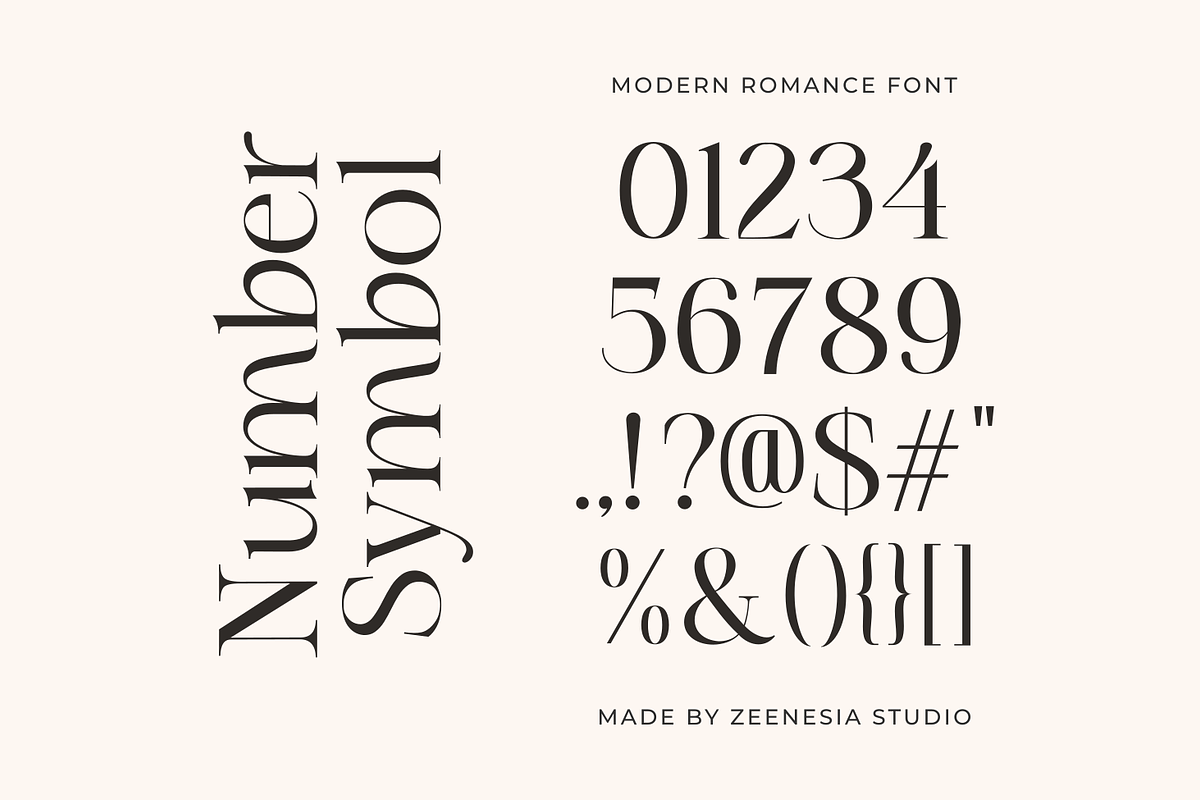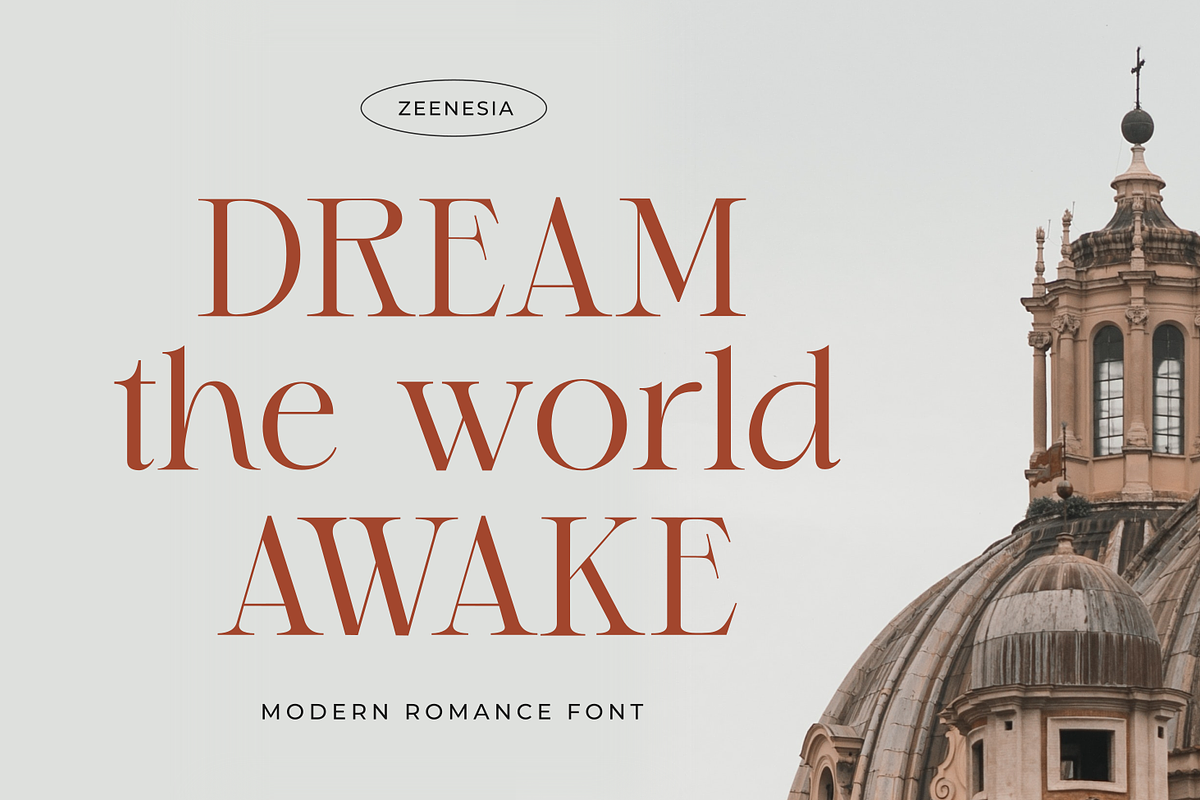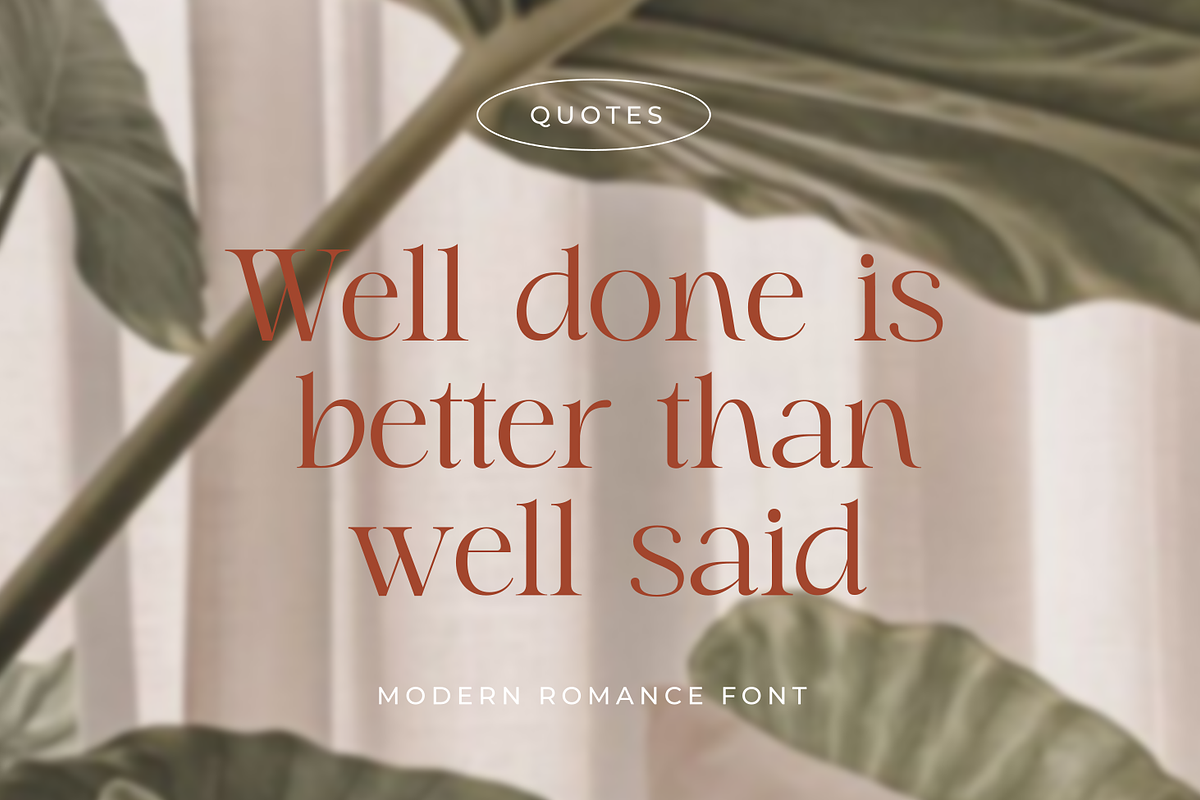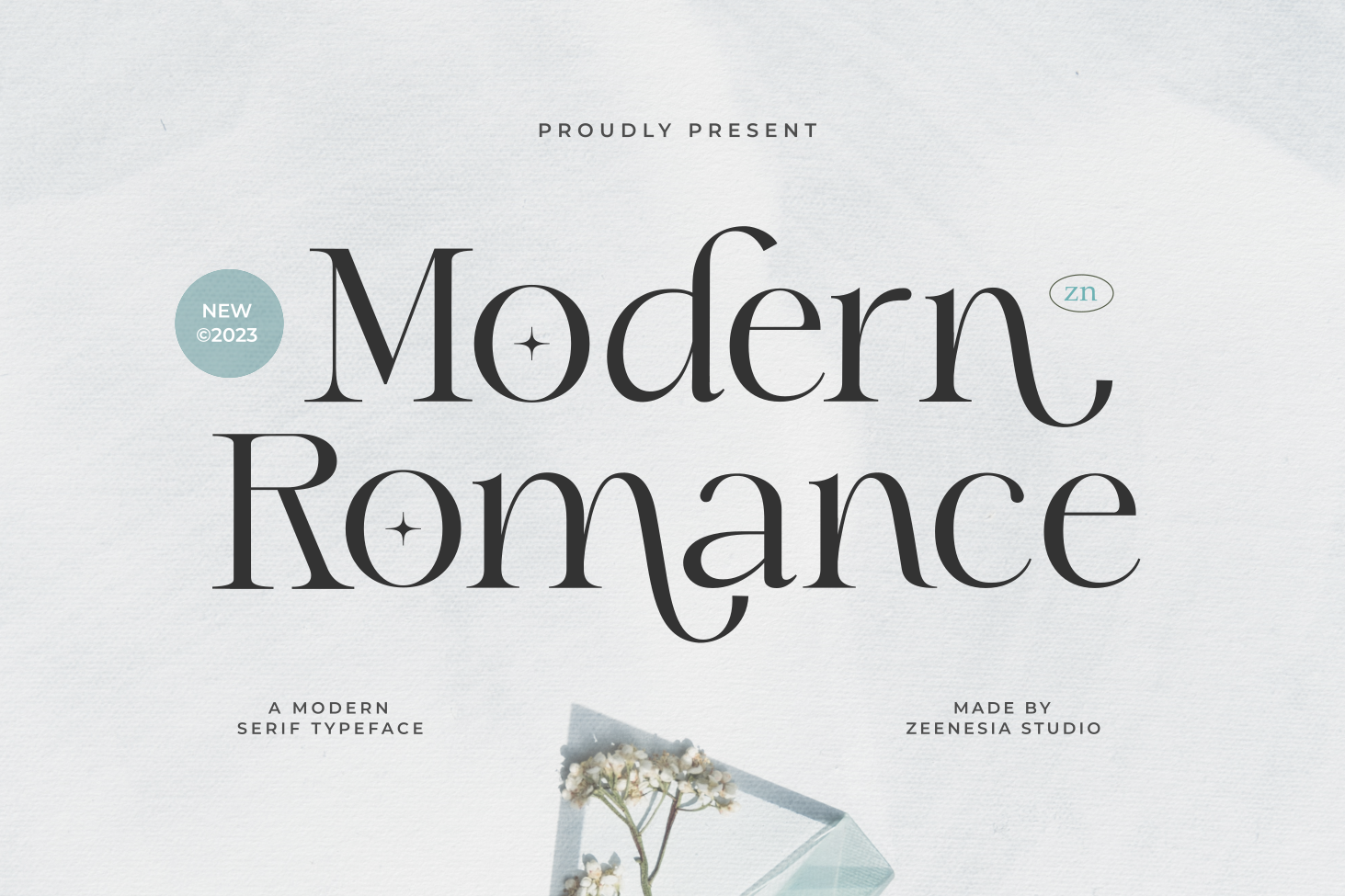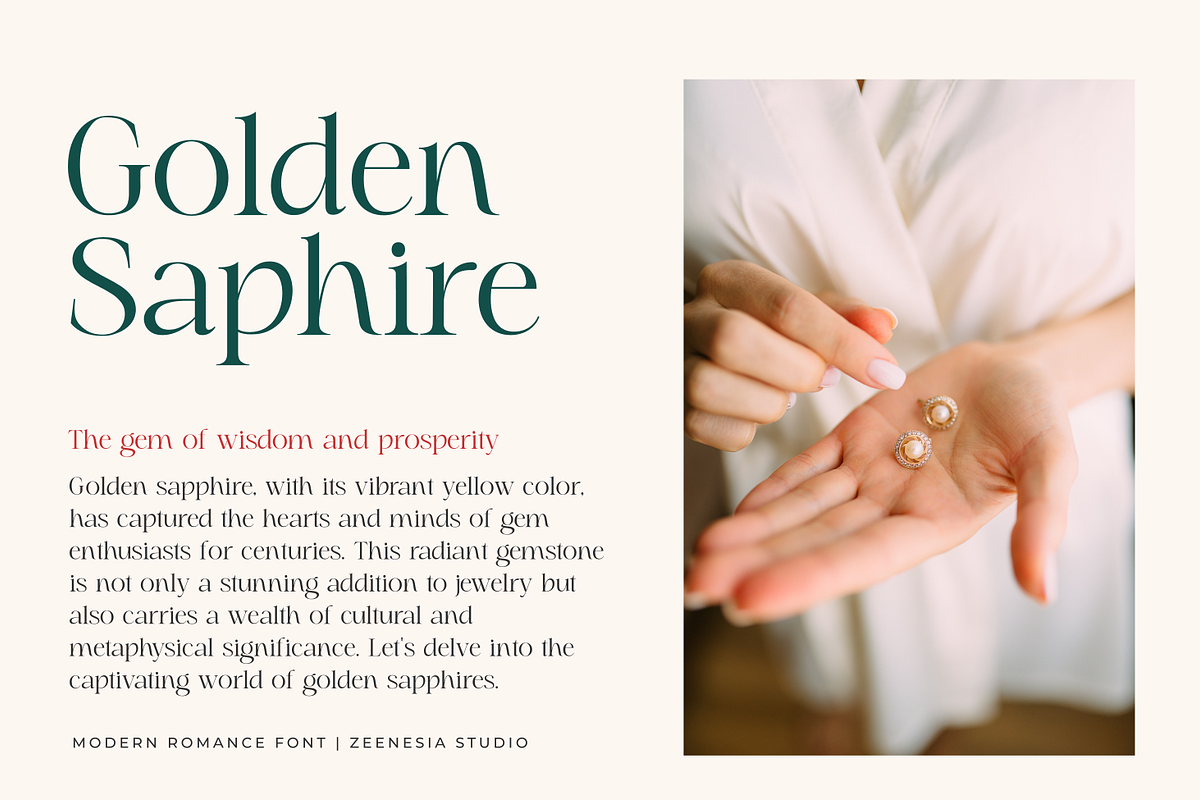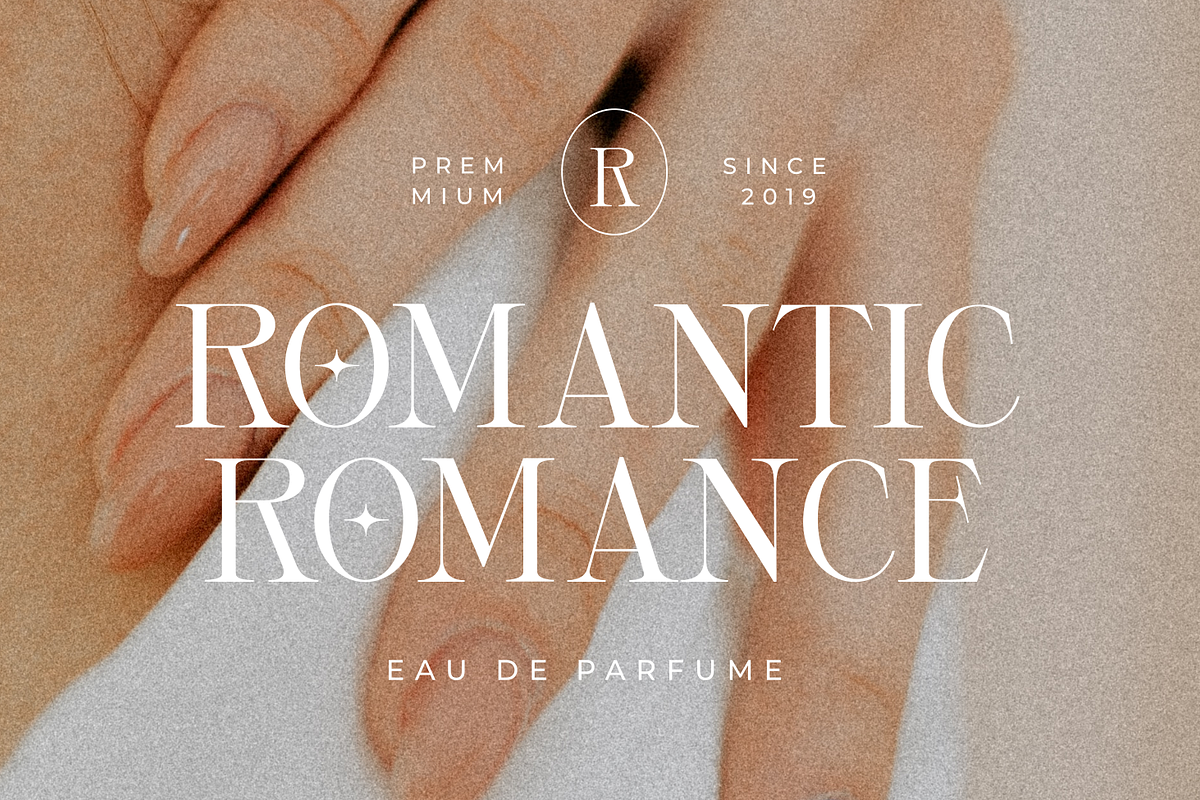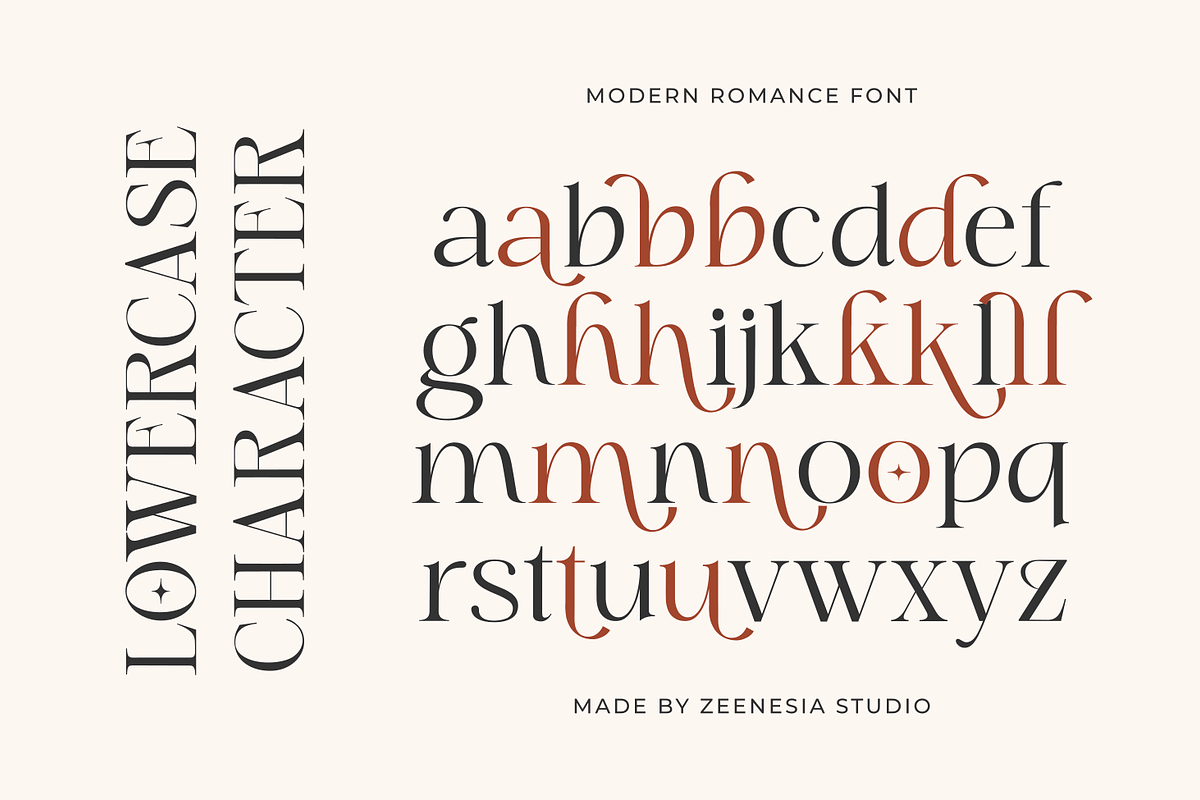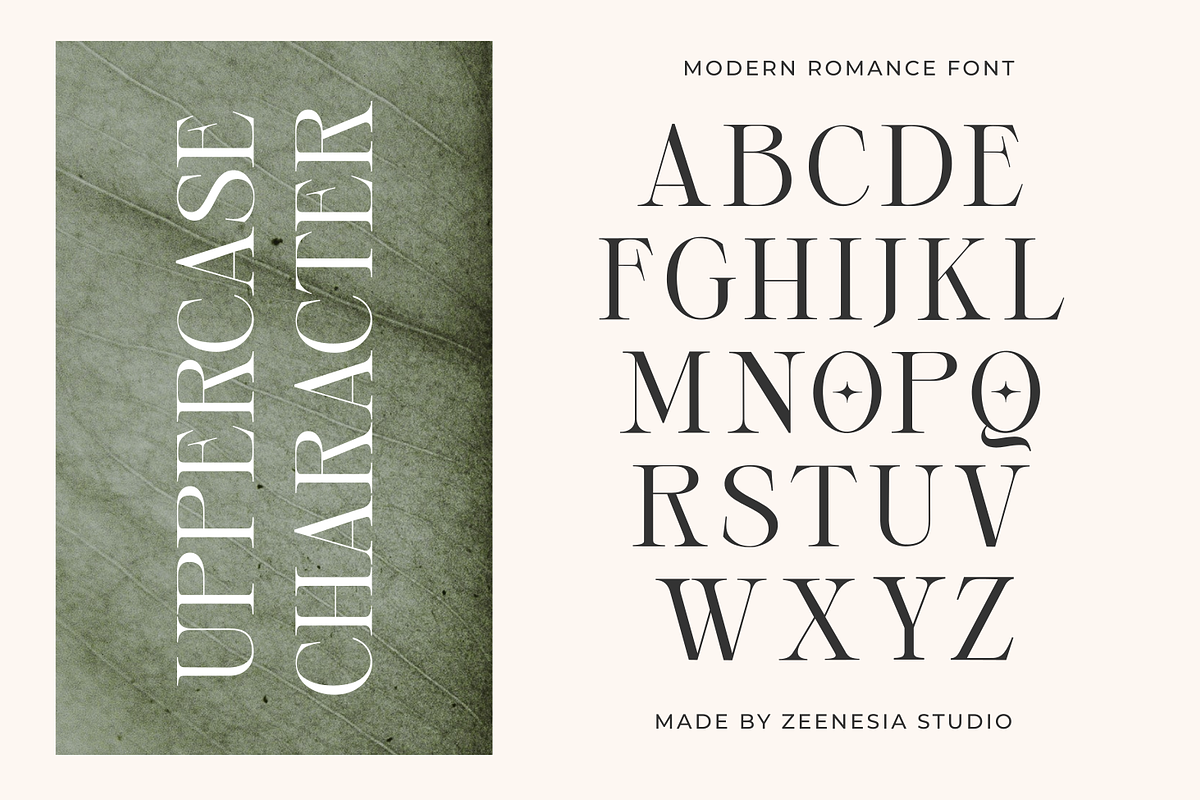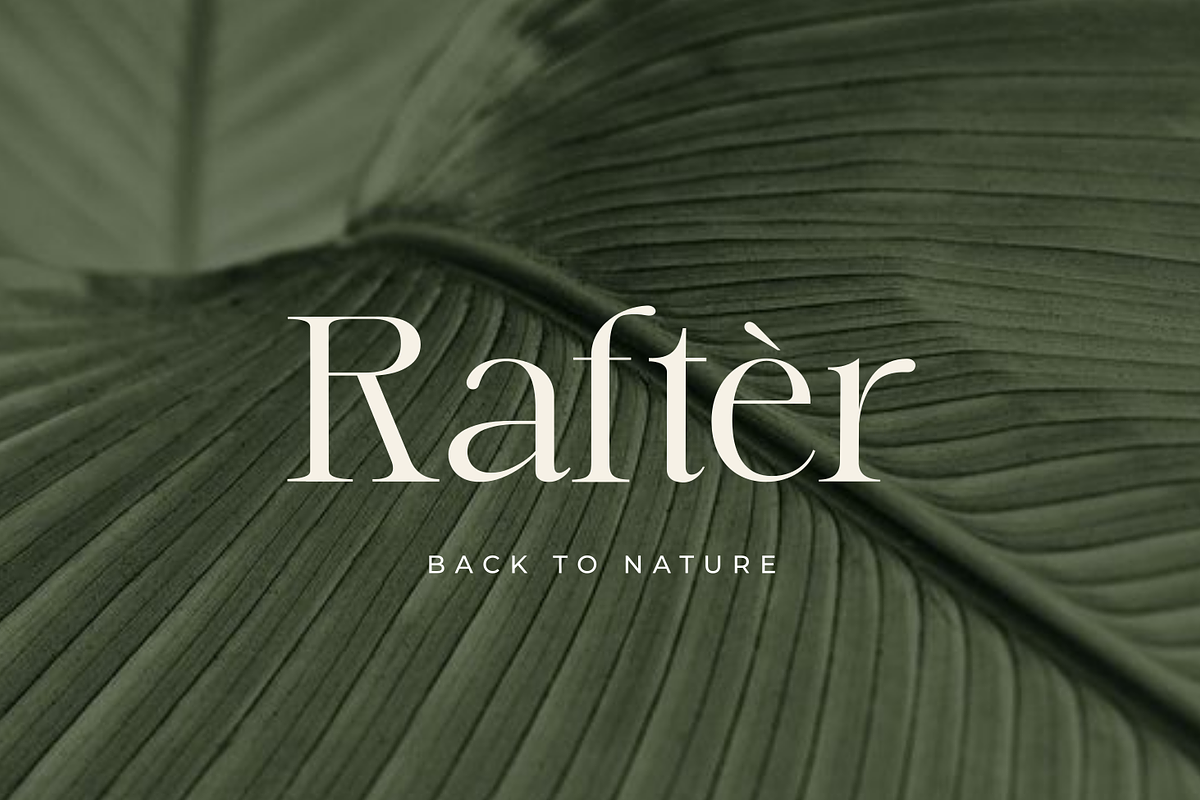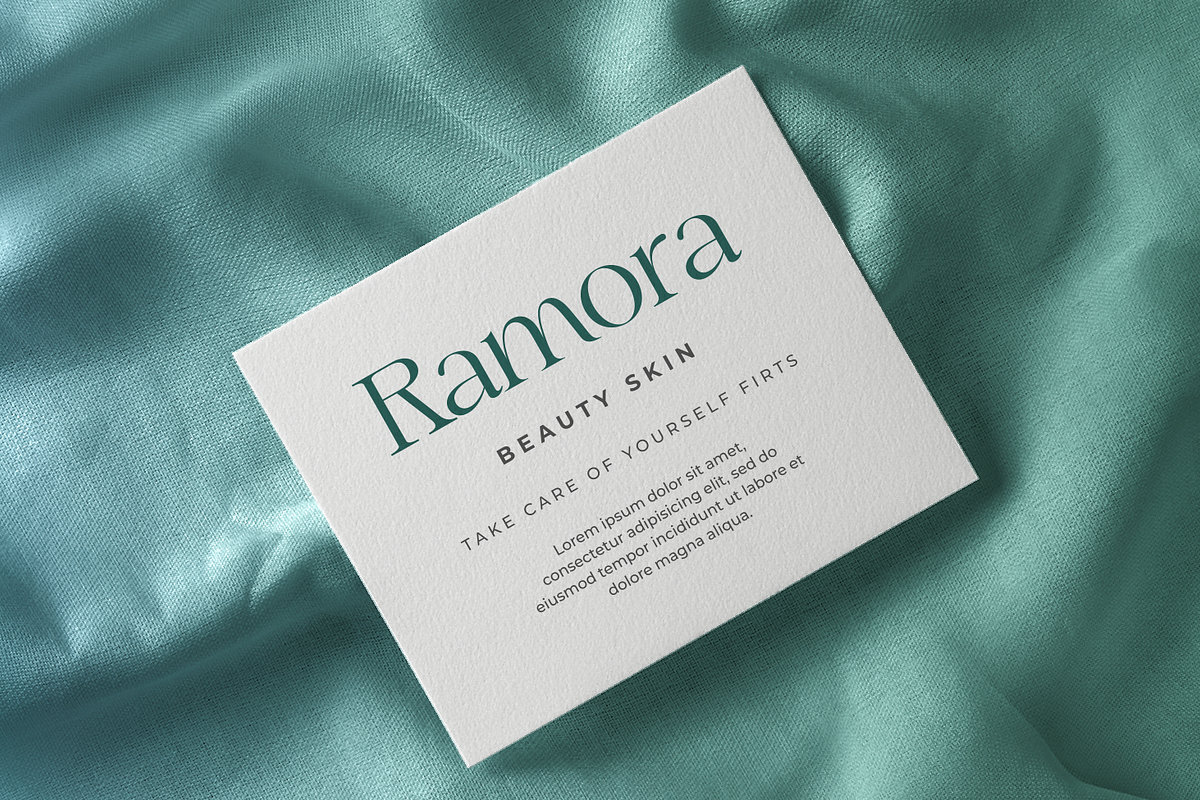
Modern Romance Font
Modern Romance is a beautiful and modern serif font created with a romantic and lovely look. It’s a very versatile font that works great in large. Whether you’re using it for business project, digital design, presentations, or making greeting cards, this font has the potential to become your favorite go-to font, no matter the occasion!